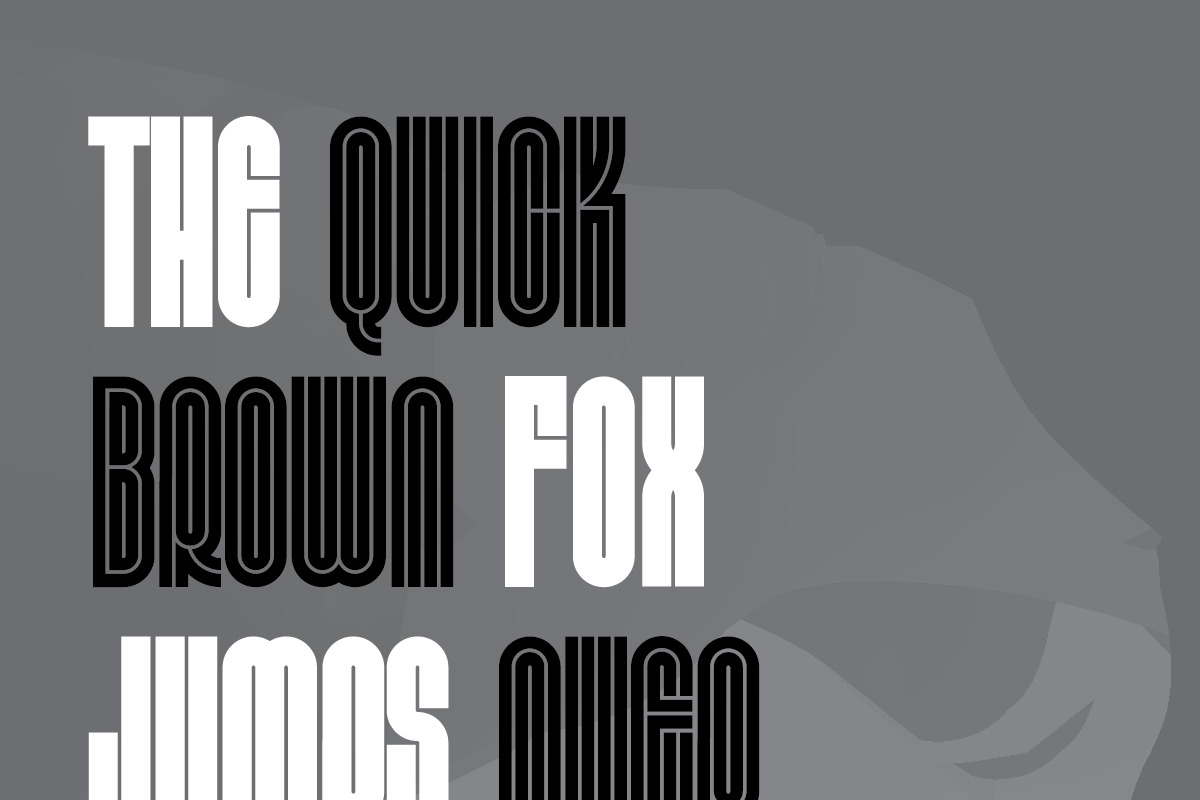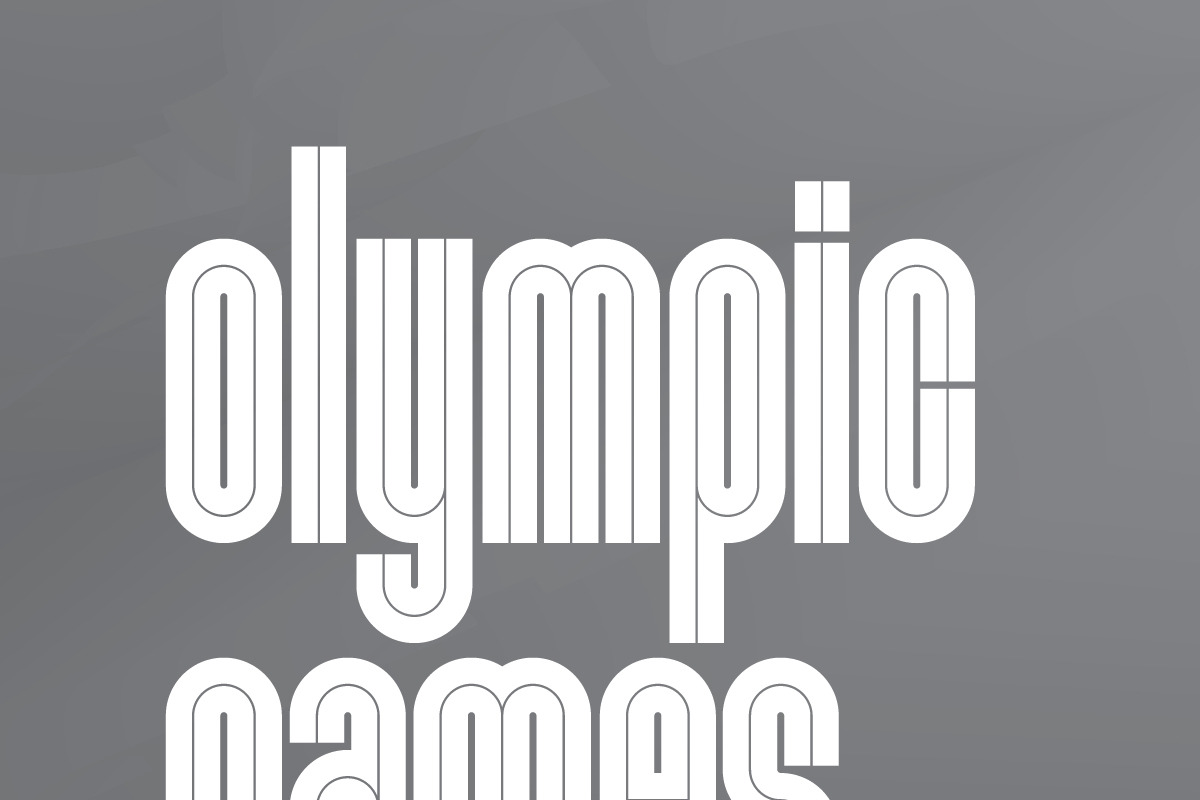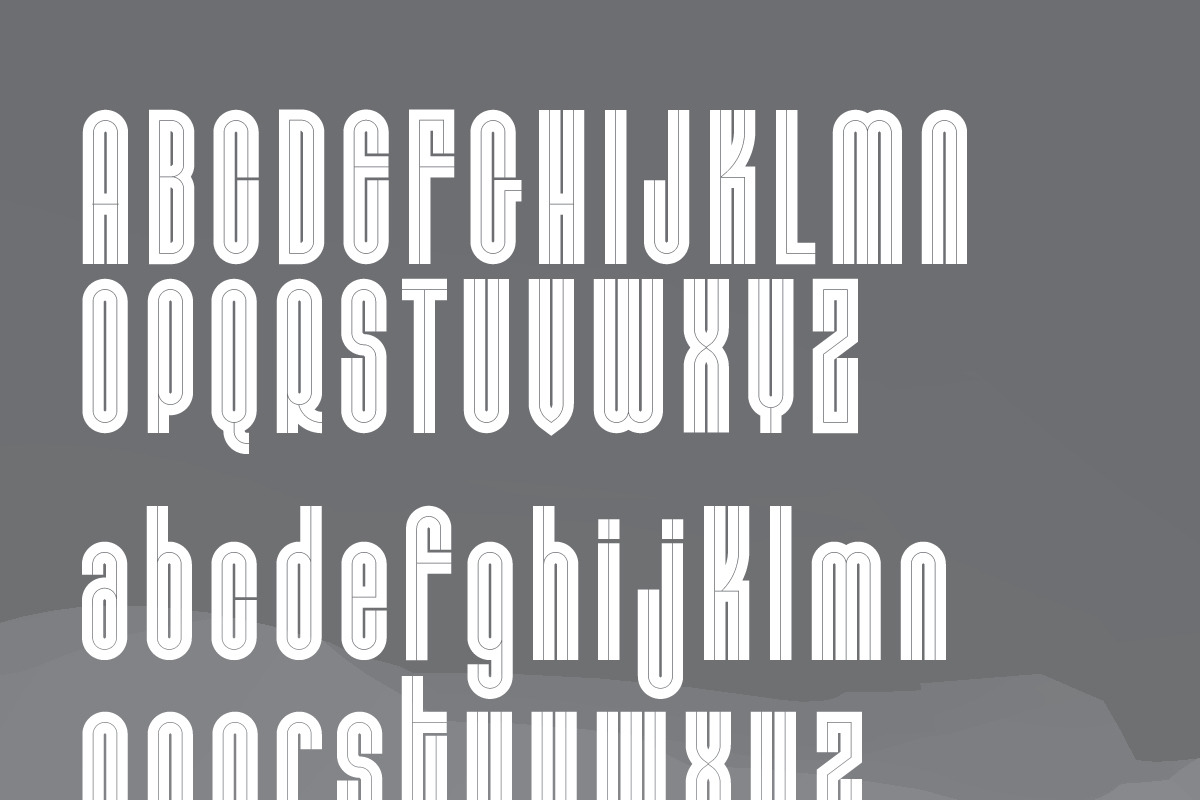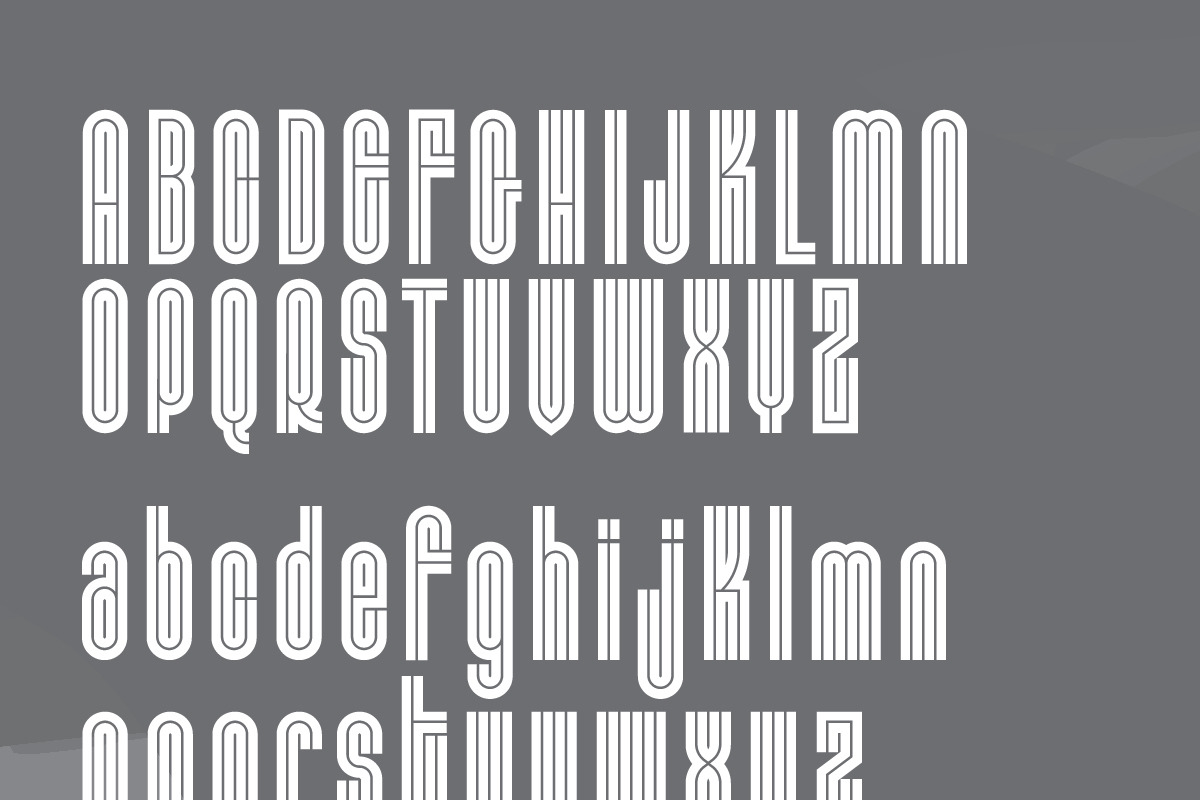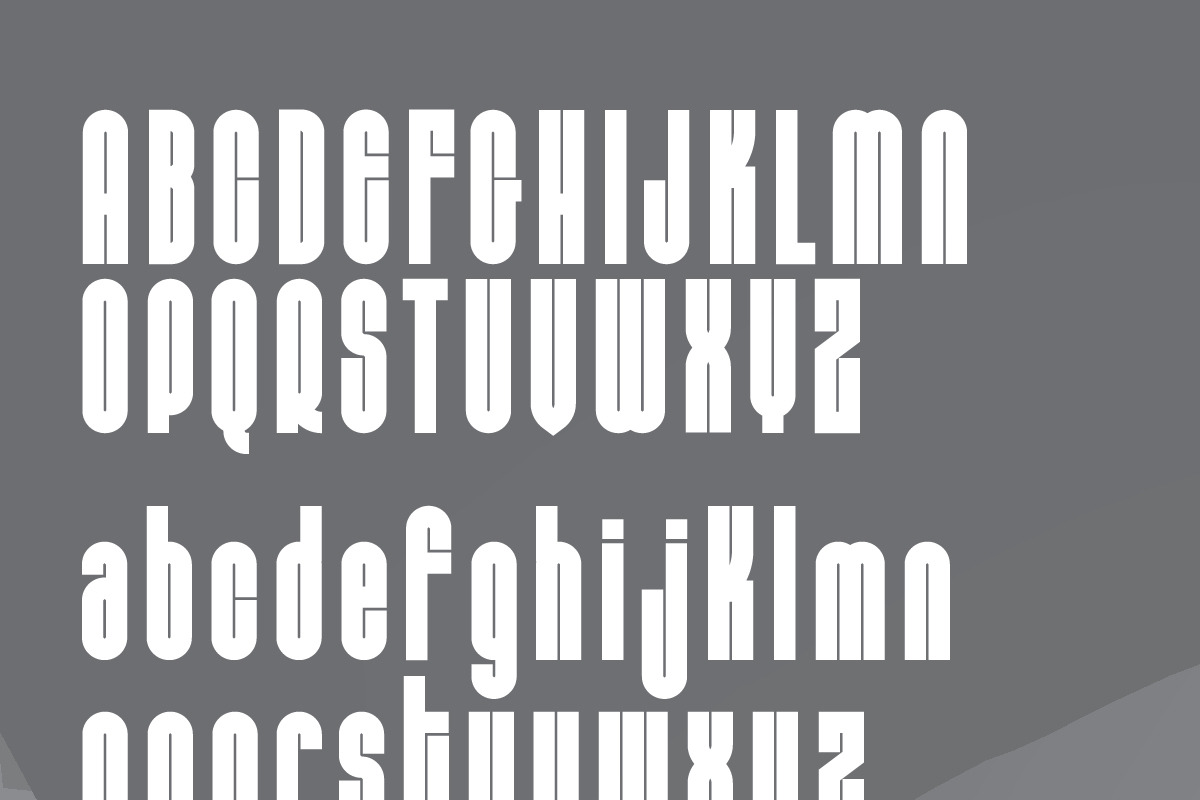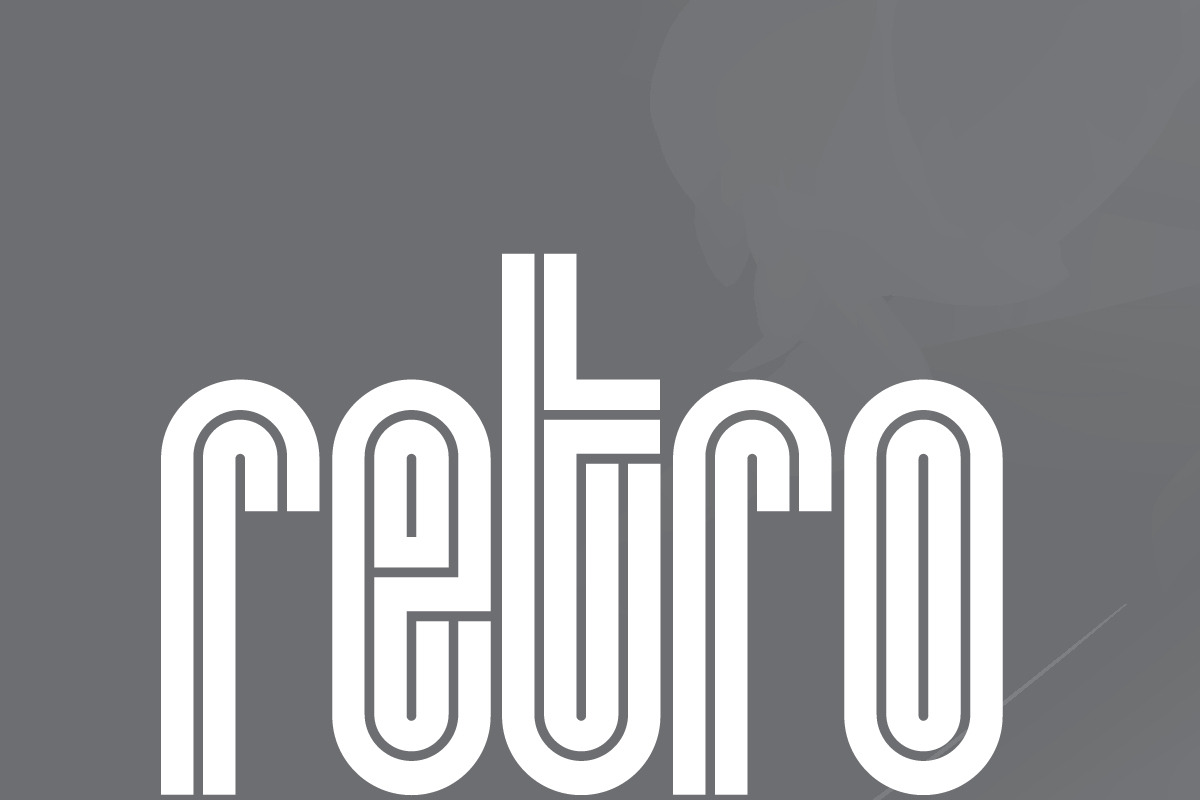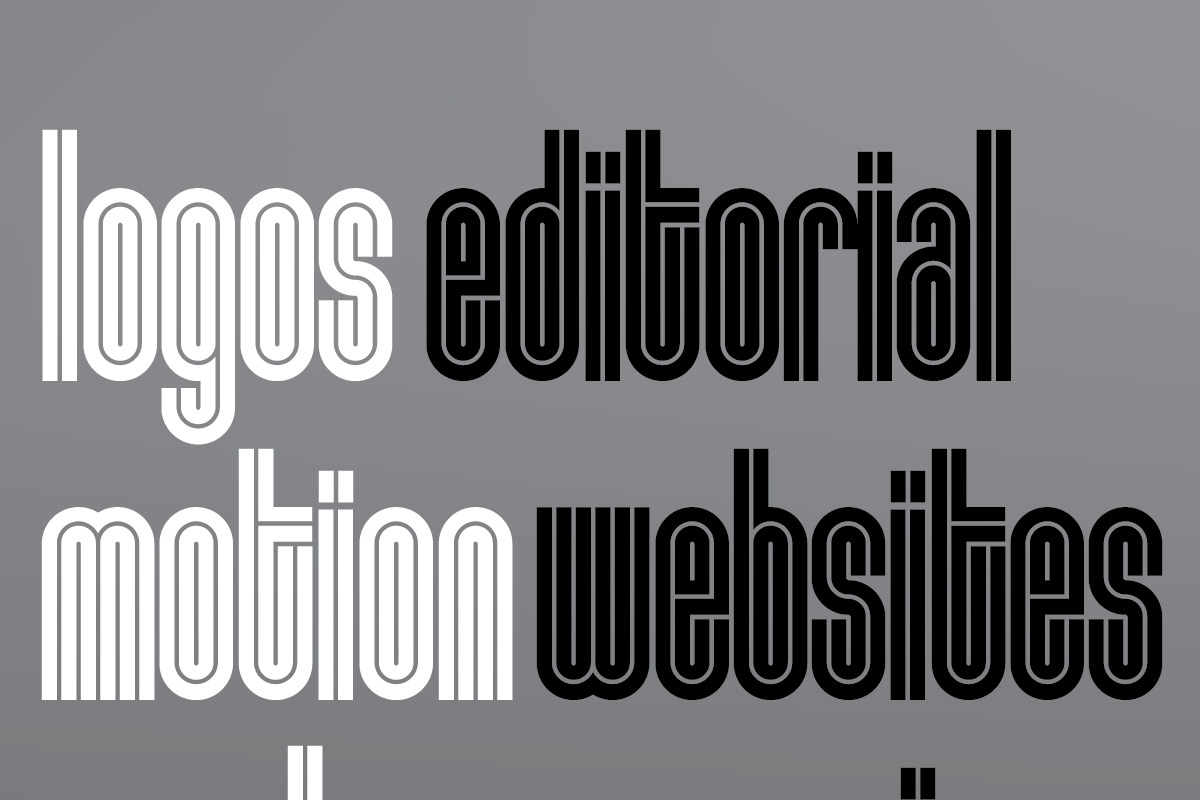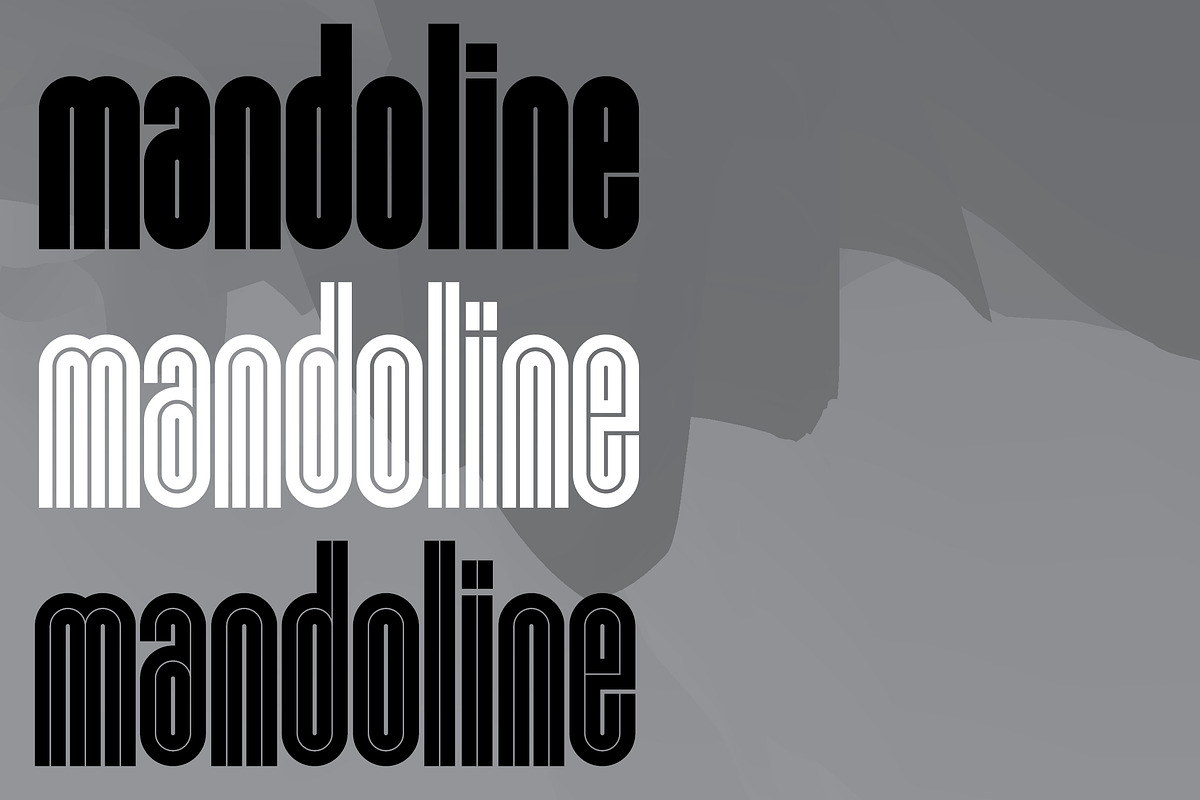
Mandoline
Mandoline is a fun modern decorative display retro font ideal for packaging, posters, logos, motion graphics and more. Comes in 3 variations